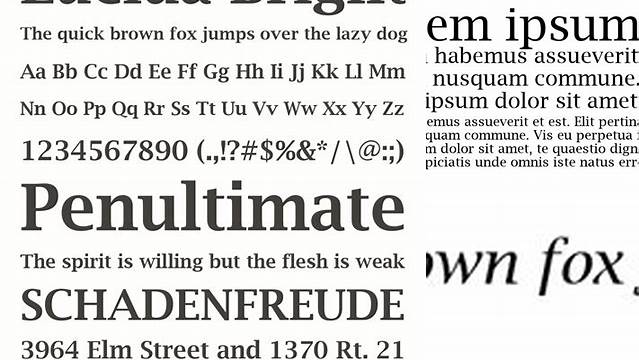
What is Lucida Bright STD Demi Font?
Lucida Bright STD Demi is a typeface that belongs to the Lucida family, designed by Charles Bigelow and Kris Holmes. It’s known for its clear, legible design, making it a favorite for various applications ranging from body text in books to digital displays. The “Demi” weight indicates a semi-bold style, providing a strong yet balanced appearance. This font exudes professionalism and readability, making it a go-to choice for designers and publishers alike. The clarity of Lucida Bright STD Demi ensures that readers can easily digest content, whether it's in print or on a screen. Its balanced letterforms and optimized spacing contribute to a comfortable reading experience, reducing eye strain and enhancing comprehension. In essence, Lucida Bright STD Demi bridges the gap between aesthetic appeal and functional design, making it a versatile asset for any project. Plus, the distinct semi-bold weight adds just the right amount of emphasis without being overpowering, making it perfect for headlines, subheadings, and callouts. Because of these features, Lucida Bright STD Demi is often chosen for documents that require a professional and polished look, such as academic papers, corporate reports, and marketing materials. Its ability to maintain clarity and legibility in both print and digital formats further solidifies its position as a reliable and widely-used typeface in the design world. With its rich history and enduring popularity, understanding and utilizing Lucida Bright STD Demi can significantly enhance the visual impact and readability of your projects.
Why is Lucida Bright STD Demi Font So Popular?
Lucida Bright STD Demi's popularity stems from several key attributes that make it a preferred choice among designers and typographers. First and foremost, its exceptional legibility sets it apart. The clean, well-defined letterforms ensure that the font remains readable even at small sizes, making it ideal for body text in books, articles, and websites. This legibility also extends to digital displays, where clarity is crucial for a positive user experience. Secondly, its versatility contributes significantly to its widespread use. Lucida Bright STD Demi works well in a variety of contexts, from formal documents to creative projects. Its semi-bold weight provides enough emphasis to make it suitable for headings and subheadings, while still being subtle enough to use in longer passages of text. Furthermore, the font has a professional and modern aesthetic that appeals to many. It strikes a balance between being classic and contemporary, making it suitable for both traditional and cutting-edge designs. This timeless quality ensures that the font remains relevant and effective across different design trends. Another factor that boosts its popularity is its availability. While not always free, Lucida Bright STD Demi is often included in font libraries that come with operating systems or design software. This built-in accessibility makes it a convenient choice for many users. In summary, the popularity of Lucida Bright STD Demi is rooted in its legibility, versatility, professional aesthetic, and accessibility. These qualities combine to make it a reliable and effective font for a wide range of applications, ensuring its continued use and appreciation in the design community.